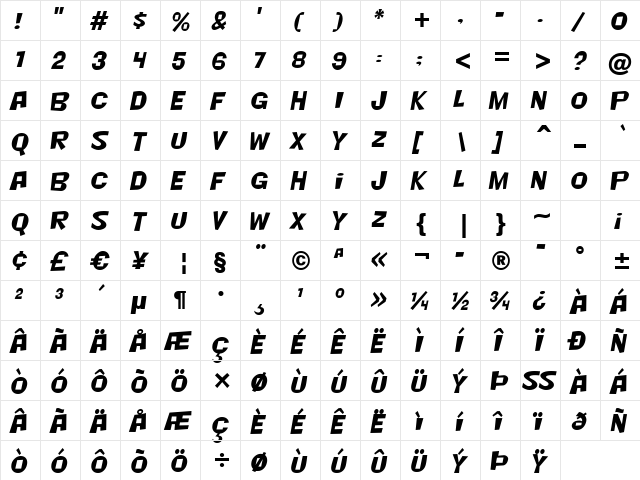
Nightclub BTN Oblique Font Preview
Nightclub BTN Oblique
Design Context for Nightclub BTN Typeface
Nightclub BTN is a composed and adaptable typeface that performs quietly and consistently across a wide range of design contexts. Its italic angle brings a sense of urgency and motion to the letterforms.